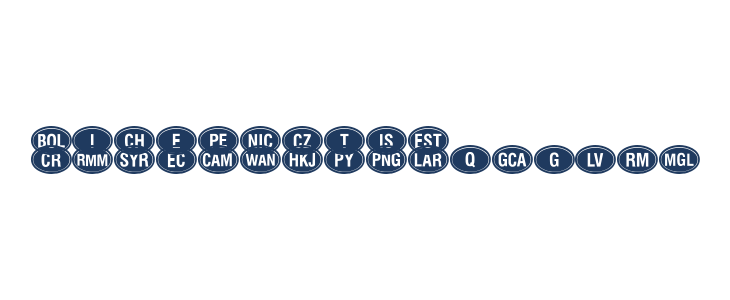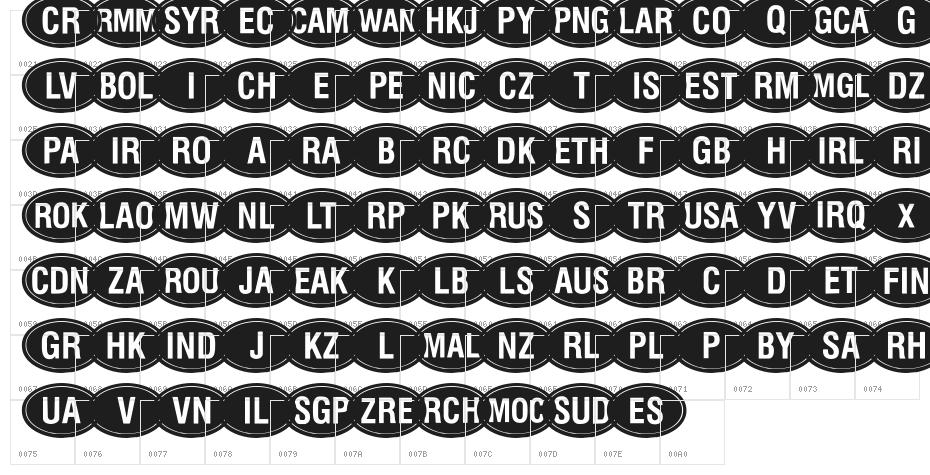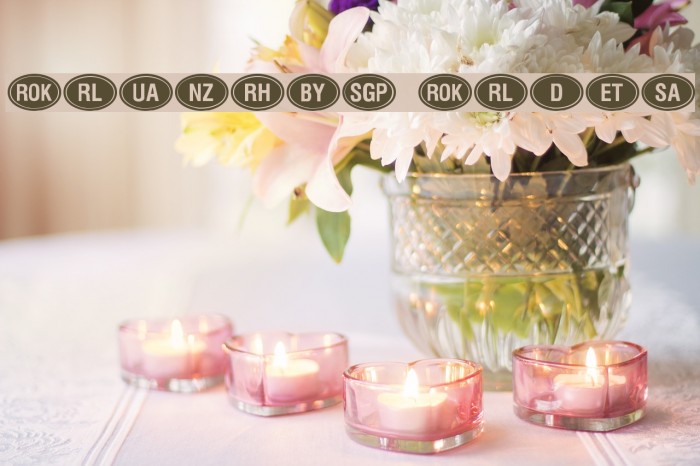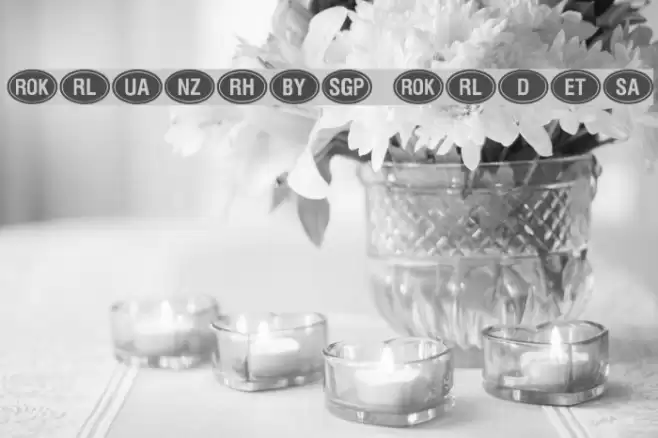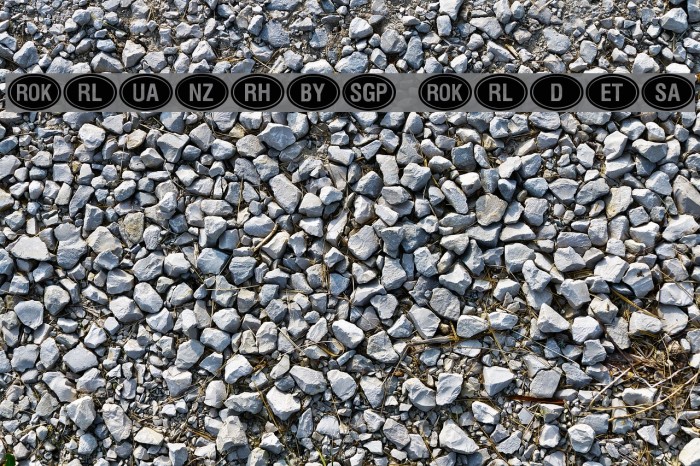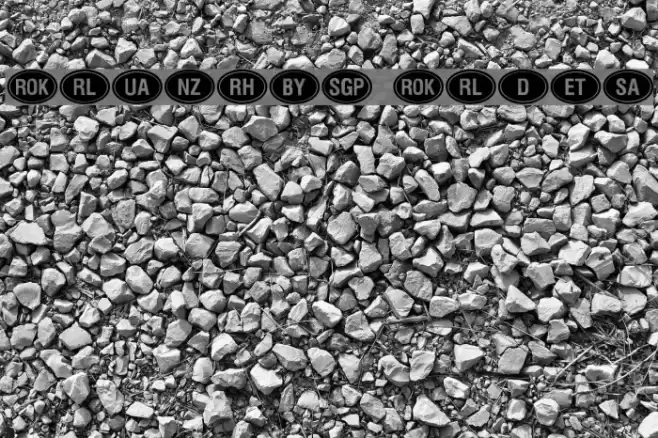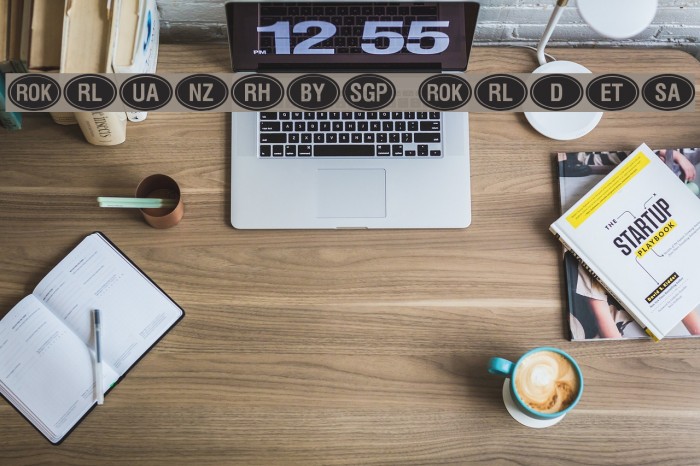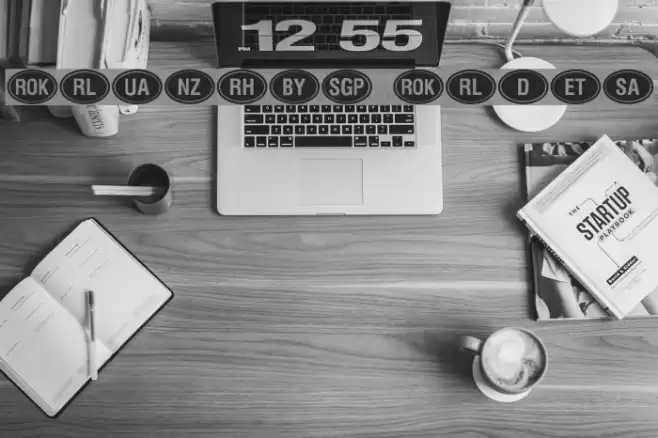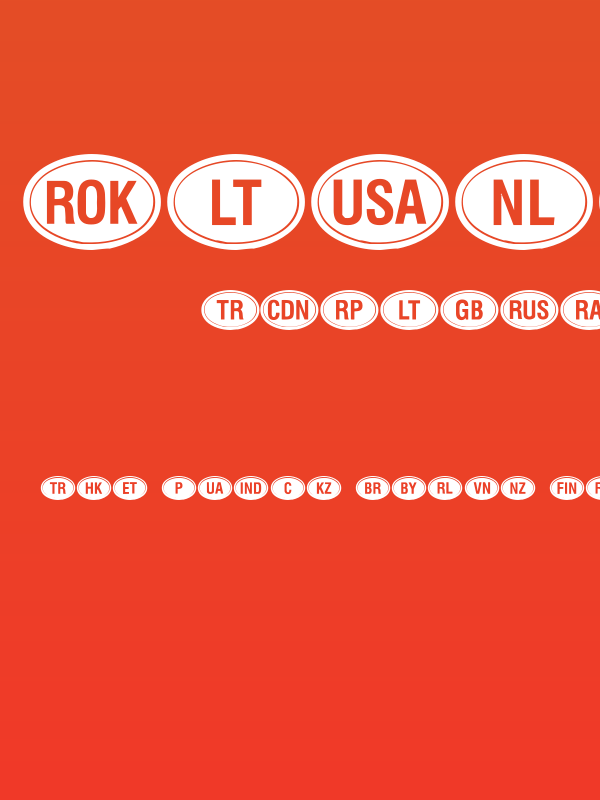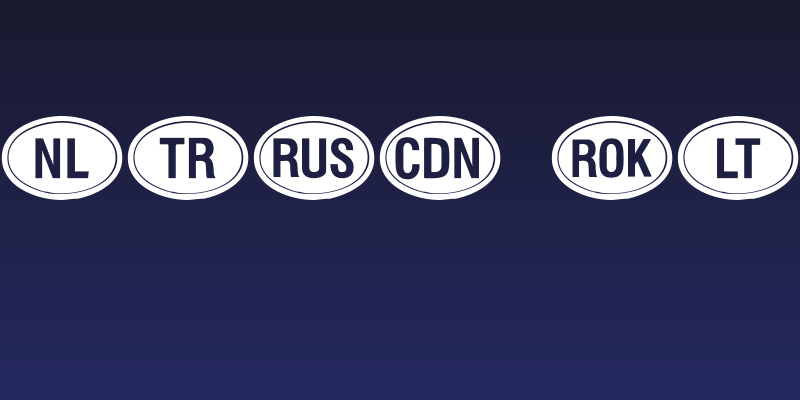
Kountry Kodes Font
Kountry Kodes Description
A bold, sans-serif typeface with uppercase letters and numbers inside black oval shapes with white outlines and white text. The characters are evenly spaced, with a geometric and clean appearance. The font is highly legible and modern, with consistent stroke thickness and no decorative elements.
| Overall Style | Modern, Functional |
| Use Case | Labels, Signage, Informational graphics |
| Proposed Projects | Signage, stickers, labels, transportation graphics, educational materials. |